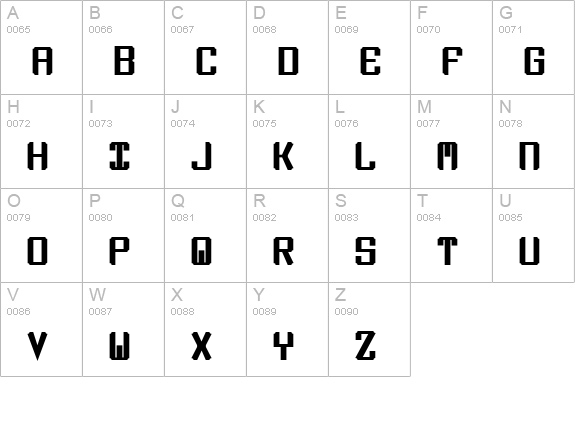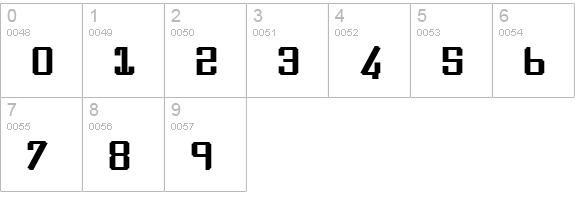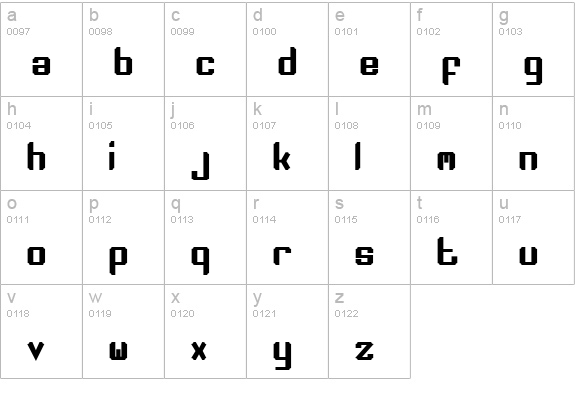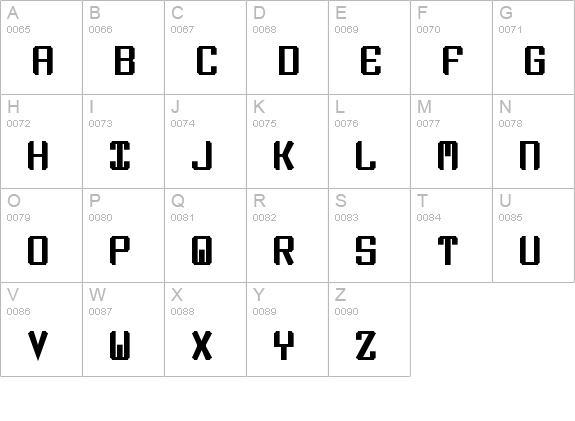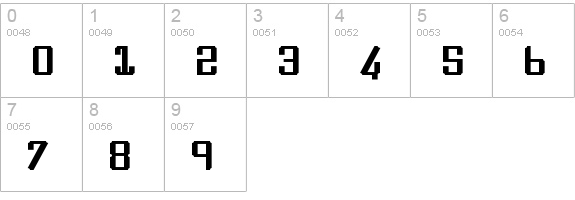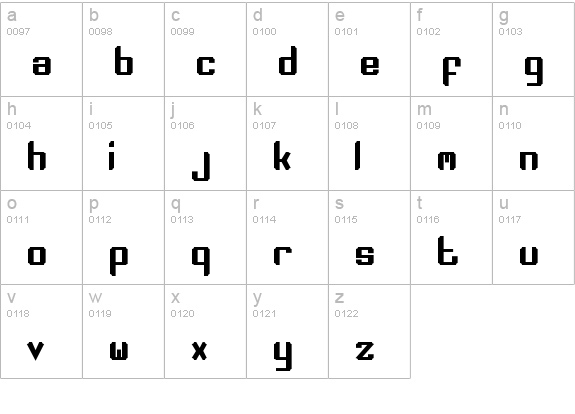
Zee Lance Bold Font Details
Zee Lance Bold is a strong, high-contrast variant in the Zee typeface family \xE2\x80\x94 well suited to headlines, attention-grabbing titles, and strong calls-to-action.
Zee Lance Bold is a stylish and versatile font that exudes confidence and elegance. With its bold and striking appearance, this font is perfect for making a statement in any design project. The strong lines and sharp edges of Zee Lance Bold give it a modern and sophisticated look that is sure to captivate the audience. What sets Zee Lance Bold apart is that it is not only visually appealing but also free to download. Yes, you read that right - this high-quality font can be freely obtained at FontsMarket.com. Whether you need a font for a poster, website, or any other creative endeavor, Zee Lance Bold is a fantastic choice that won't cost you a thing. Don't miss out on the opportunity to elevate your designs with this exceptional font - download Zee Lance Bold today!